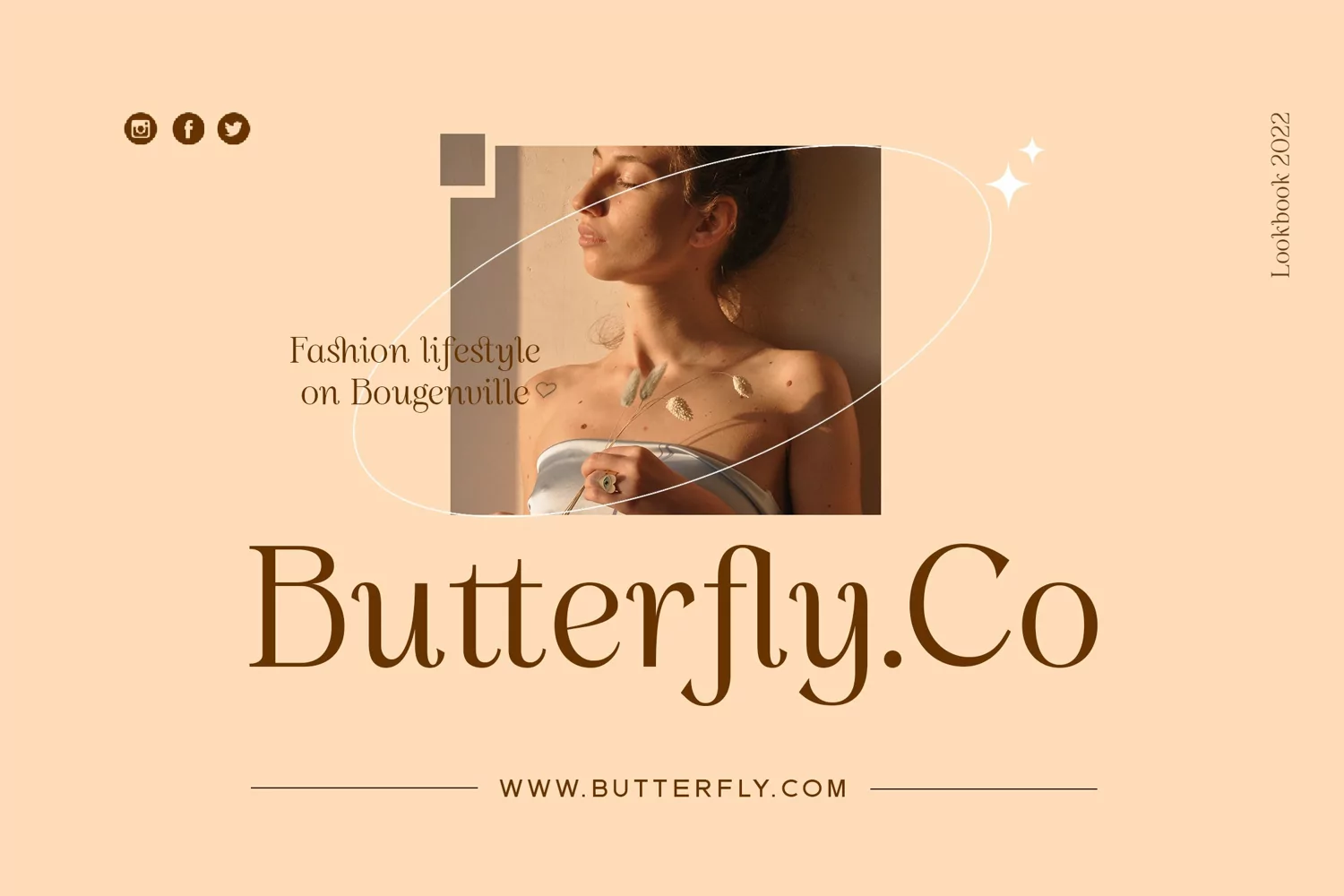
Questwin - Modern Aesthetic Beauty Serif Font - Expressive Elegant Feminine Logo Branding Font
Questwin comes with some alternates and ligatures, so you can combine it to make a perfect typography design. It is perfect for your up coming projects. Such as luxury logo and branding, classy editorial design, woman magazine, cosmetic brand, fashion promotional, art gallery branding, museum, historical of architectural, boutique branding, stationery design, blog design, modern advertising design, card invitation, art quote, home decor, book/cover title, special events and any more.